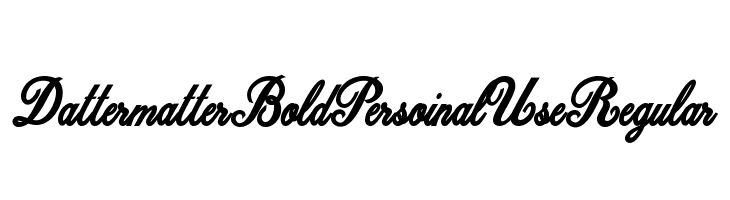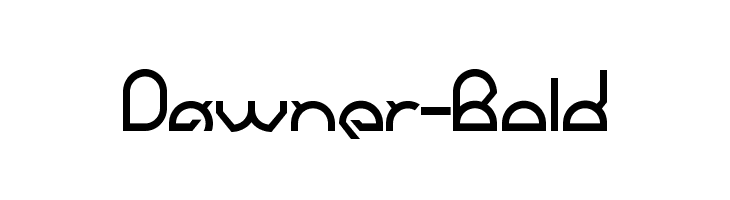
A bold, cursive font with elegant loops and decorative flourishes.
A bold, angular font with a medieval, runic style.
A bold, italicized font with sharp, angular edges and a futuristic look.
A bold, decorative font with intricate curves and ornamental elements.
A modern, geometric font with bold, rounded edges and a sleek appearance.
A modern, geometric font with bold, clean lines and a futuristic aesthetic.
A bold, geometric font with angular, blocky letterforms and high contrast.
A bold, italicized font with angular, geometric characters.